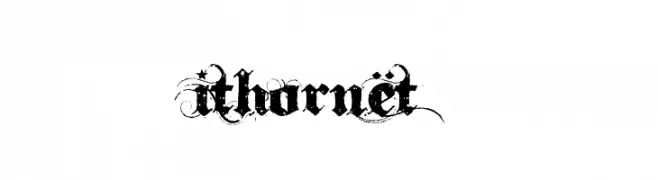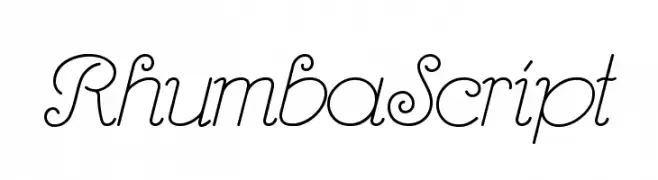
A whimsical, curly font with playful loops and swirls.
A whimsical, curly decorative font with playful loops and swirls.
A playful, curly font with bold, rounded characters and whimsical swirls.
An elegant and decorative script font with intricate loops and swirls.
An elegant script font with decorative swirls and flourishes.
A bold, cursive font with decorative swirls and high contrast.
An ornate and decorative script font with intricate swirls and flourishes.
A whimsical, decorative font with intricate swirls and loops.
A playful, decorative font with swirling embellishments and whimsical charm.
An elegant and decorative font with intricate swirls and loops.
An elegant script font with intricate swirls and high contrast, perfect for decorative purposes.
An ornate, whimsical font with intricate swirls and loops, reminiscent of hand-drawn calligraphy.
A cursive, handwritten font with elegant loops and swirls.
An elegant script font with intricate swirls and flowing cursive style.
A decorative font with swirling embellishments and a whimsical style.
An ornate script font with intricate swirls and flourishes.
An elegant and ornate script font with intricate swirls and flourishes.
An artistic font with swirling, intricate line patterns creating a dynamic look.
A decorative script font with elegant swirls and loops, perfect for adding sophistication.
A playful and whimsical script font with decorative swirls and a hand-drawn feel.
A decorative font with intricate tribal patterns and bold, swirling designs.
An elegant and flowing script font with decorative loops and swirls.
A bold, decorative font with swirling, ornate characters.
An ornate and decorative font with intricate swirls and flourishes.
An ornate and decorative font with elaborate swirls and flourishes.
An elegant, flowing script font with intricate loops and swirls.
An elegant script font with ornate swirls and decorative flourishes.
A decorative cursive font with elegant swirls and loops.